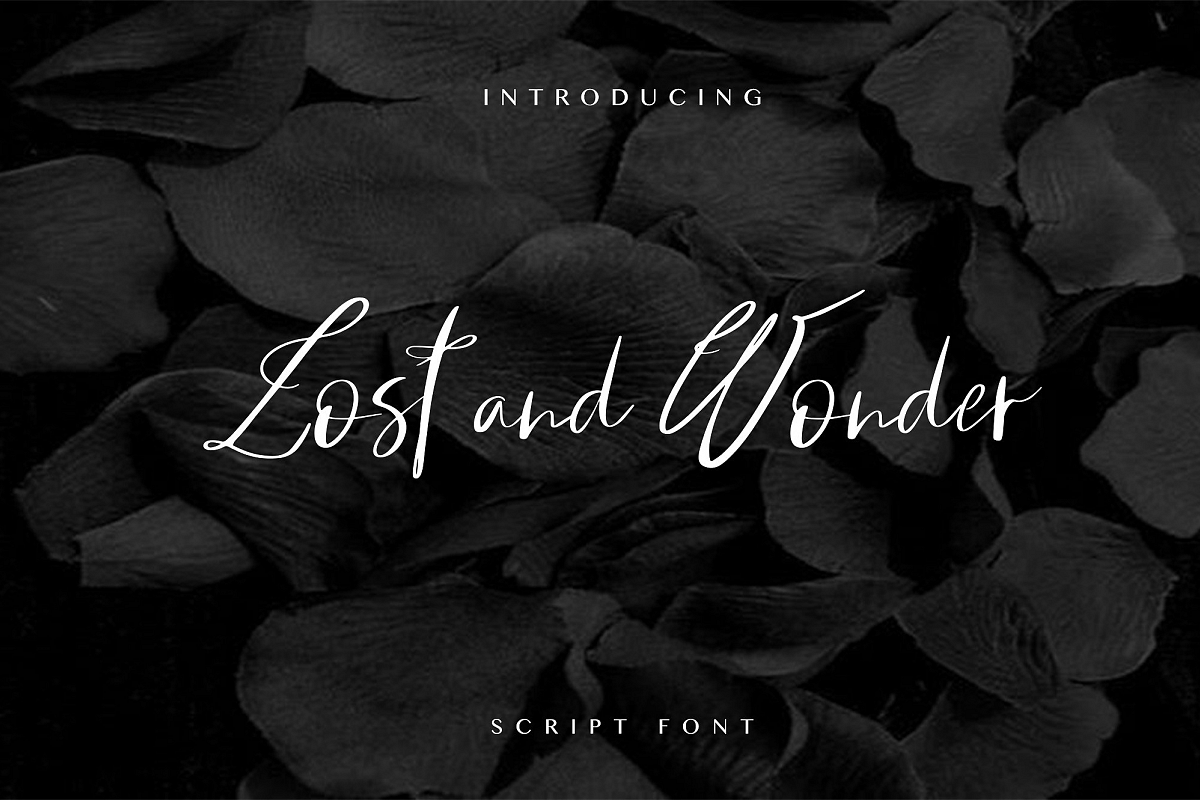
LOST AND WONDER SCRIPT FONT
Lost and Wonder Script is a feminine playful font adding every single detail carefully and love to fit perfectly for your texts, logo, quotes, blog header, poster, wedding invitation, stationery, etc.
The font contains standard characters, lowercase, uppercase, numbers and punctuation.